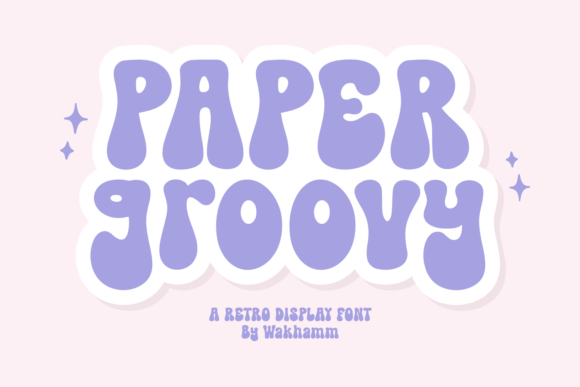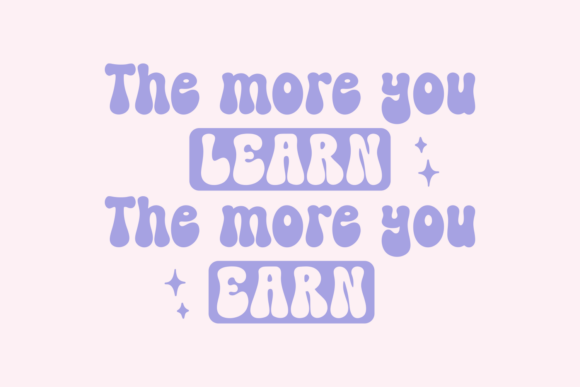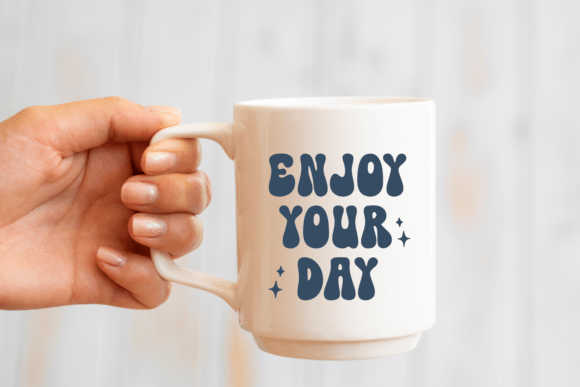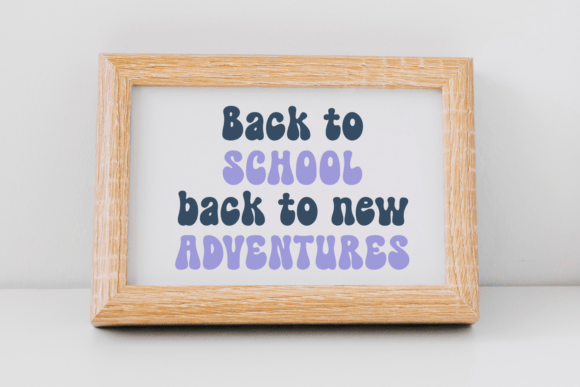
Paper Groovy Font: A Funky Retro Display Font for Headlines & Branding
About the Paper Groovy Font
Introducing the Paper Groovy Font, a beautifully crafted typeface designed to elevate your creative projects. Steeped in the charming allure of the past, Paper Groovy presents a vintage yet delightful display font. It’s a perfect tribute to the nostalgic back-to-school era, seamlessly bonding yesterday’s aesthetics with today’s design needs. Paper Groovy is a masterpiece, providing smooth and effortless access to all glyphs and alternatives. From captivating headlines and magazines to impactful logos and branding elements, this fun and funky font adds a captivating twist. Experience the unique blend of cool retro vibes and modern versatility with Paper Groovy.
Paper Groovy Font Usage Examples
Paper Groovy Font Example